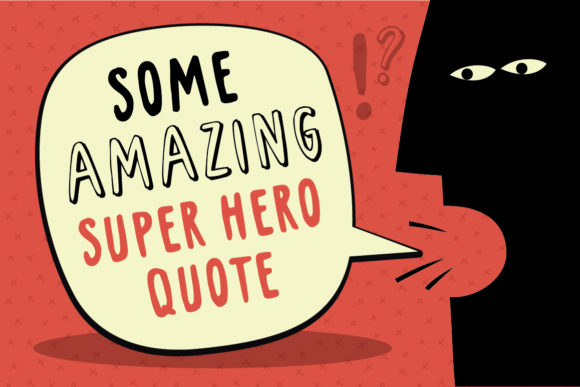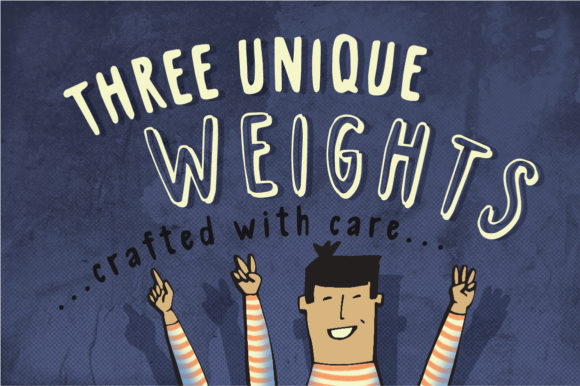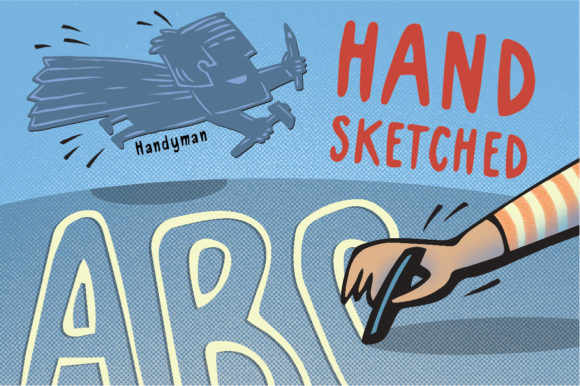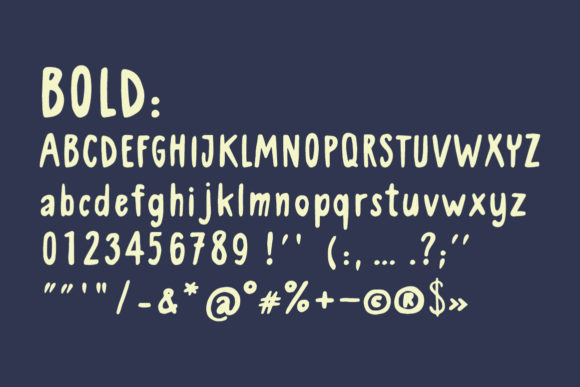
Introducing Handyman Font: Elevate Your Designs with a Unique Style
Are you tired of using the same old fonts for your designs? Look no further! Handyman Font is a stunning display font that can add a touch of creativity and uniqueness to your projects. With its distinctive style, this font is perfect for designers and crafters who want to make their designs stand out from the crowd.
What Makes Handyman Font Special?
Handyman Font is a carefully crafted font that boasts a one-of-a-kind style. Its unique design makes it perfect for creating spectacular designs that capture attention. Whether you’re working on a logo, poster, or social media graphic, this font is sure to elevate your project to the next level.
Key Features of Handyman Font
- Unique Style: Handyman Font has a distinctive style that sets it apart from other fonts.
- Display Font: This font is specifically designed for display purposes, making it perfect for headlines, titles, and other attention-grabbing elements.
- Creative Freedom: With Handyman Font, you can unleash your creativity and experiment with different designs and styles.
Design Ideas with Handyman Font
Handyman Font is versatile and can be used for a wide range of design projects. Here are some ideas to get you started:
- Logos and Branding: Use Handyman Font to create a unique and memorable logo for your business or brand.
- Posters and Flyers: Create eye-catching posters and flyers that grab attention with Handyman Font.
- Social Media Graphics: Elevate your social media graphics with Handyman Font and make your content stand out.
- Signage and Displays: Use Handyman Font for signage and displays to create a lasting impression.
Benefits of Using Handyman Font
By using Handyman Font, you can:
- Stand Out from the Crowd: With its unique style, Handyman Font can help you differentiate your designs from others.
- Enhance Your Brand: Use Handyman Font to create a consistent brand identity that reflects your values and personality.
- Save Time: With Handyman Font, you can create stunning designs quickly and easily, saving you time and effort.
- Boost Creativity: Experiment with different styles and combinations to unlock your creative potential.
| Author | vitekprchal |
Handyman Font is a powerful tool for designers and crafters who want to create spectacular designs. With its unique style, ease of use, and versatility, this font is perfect for a wide range of projects. Whether you’re a seasoned designer or just starting out, Handyman Font can help you elevate your designs and take your creativity to the next level.